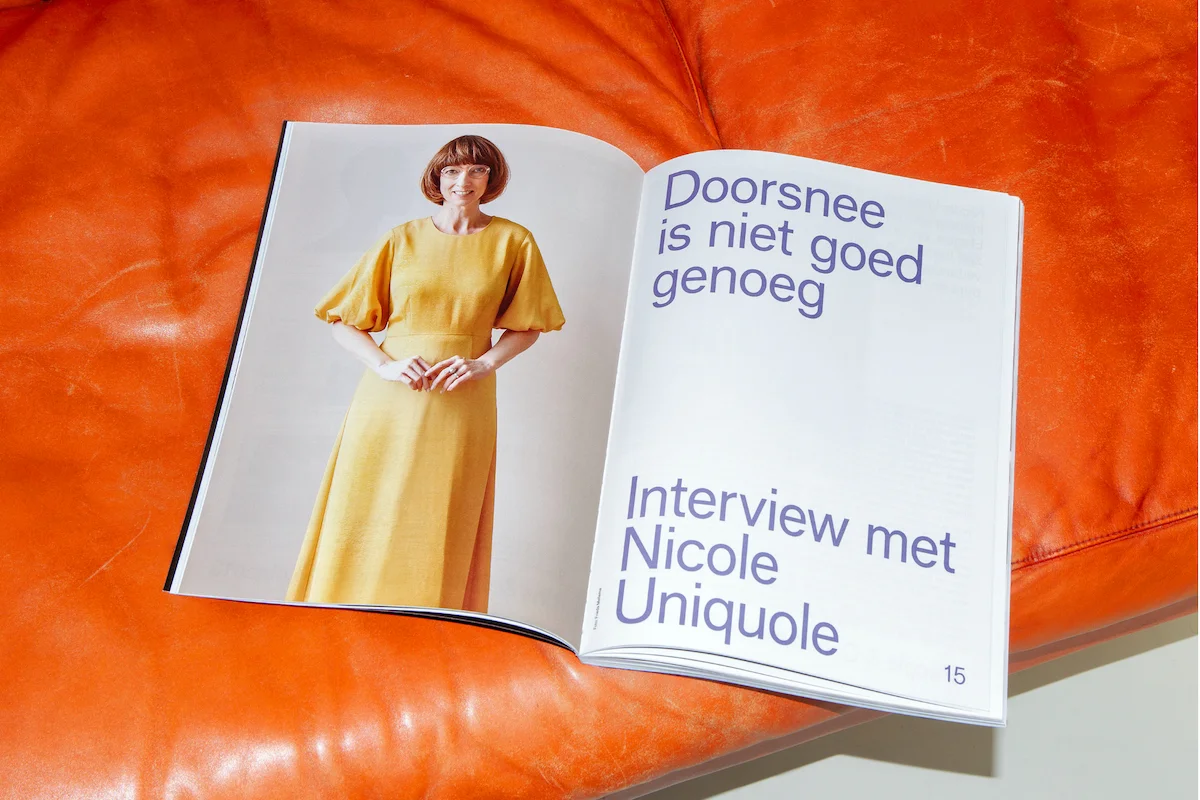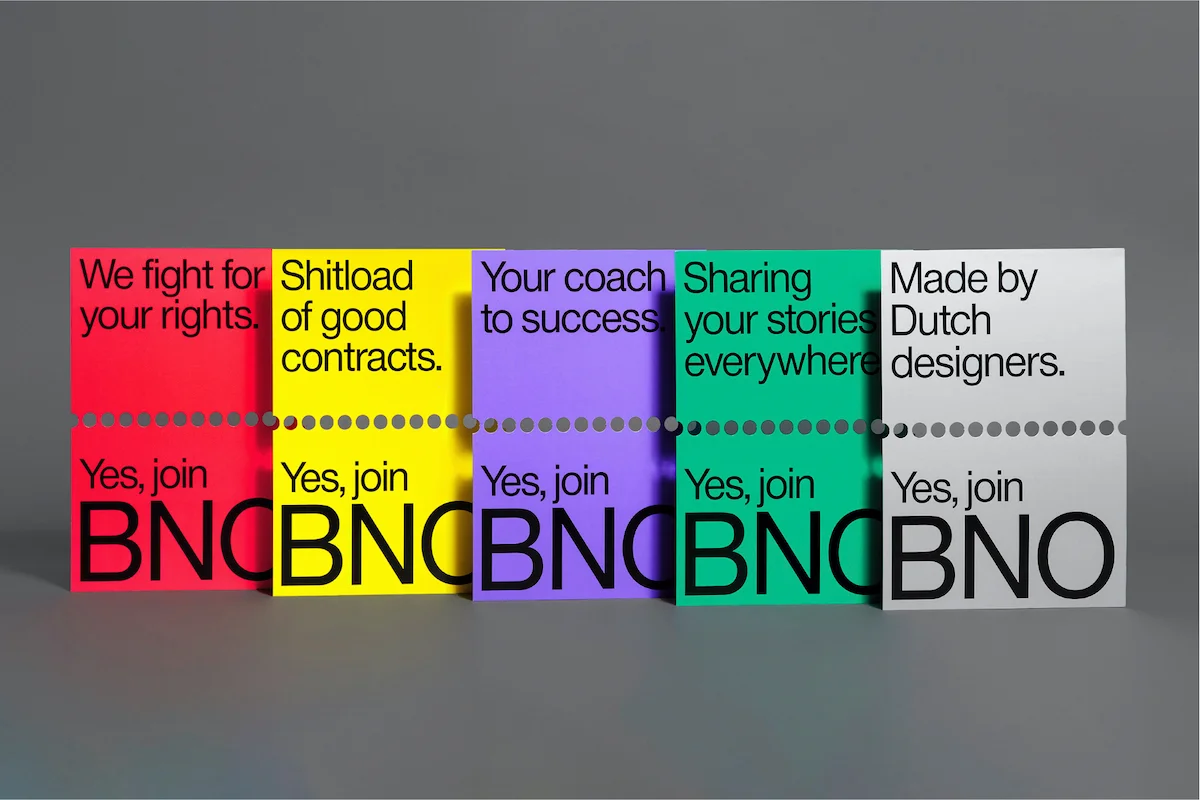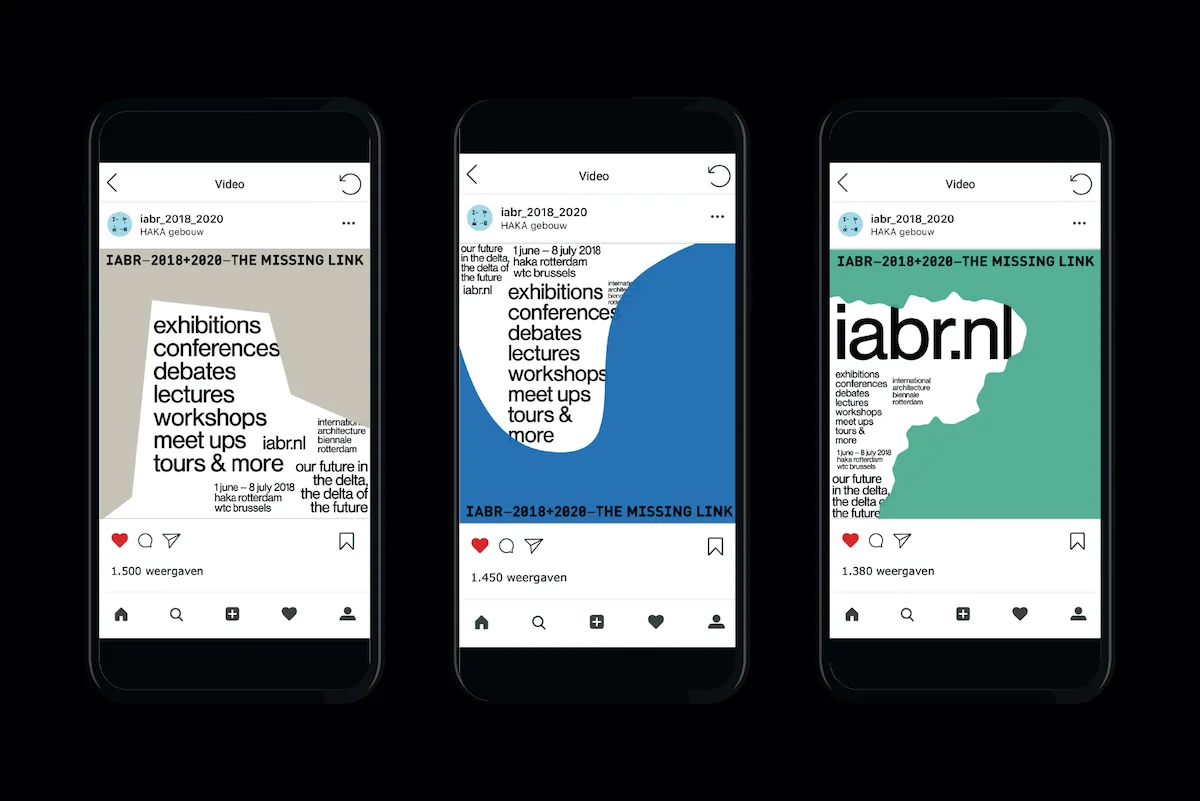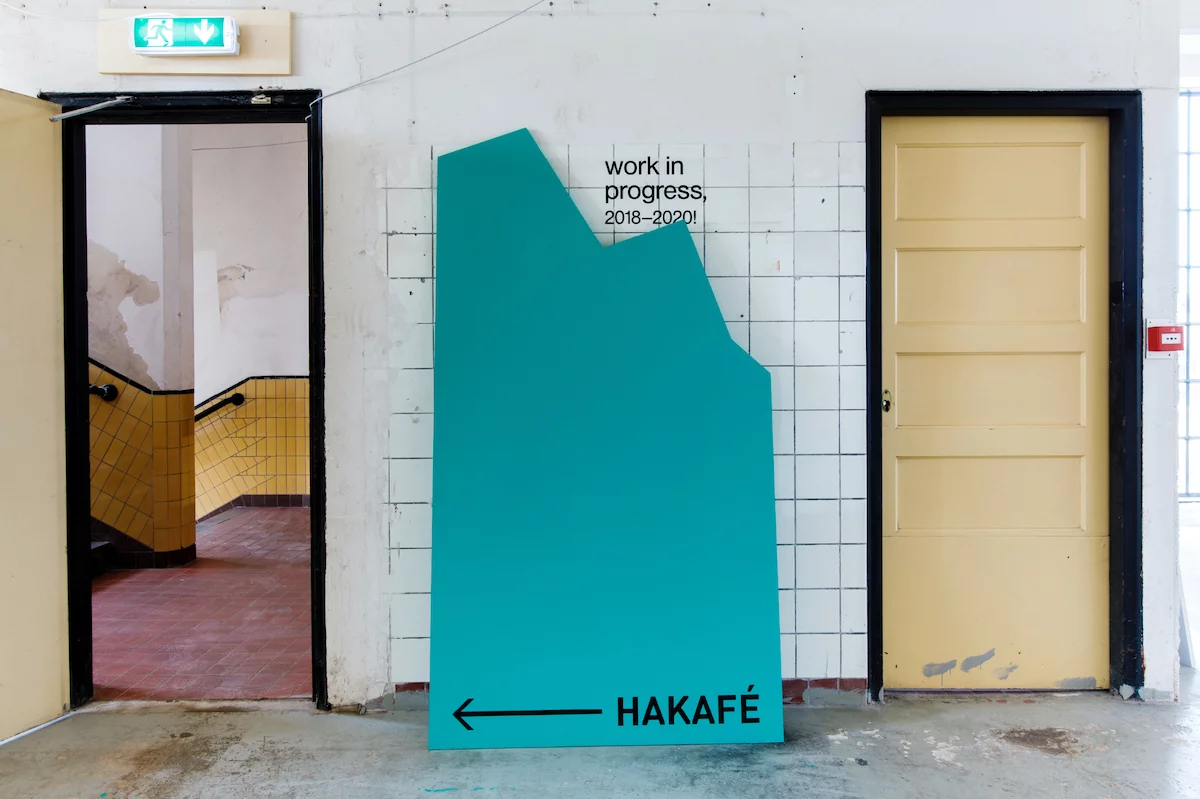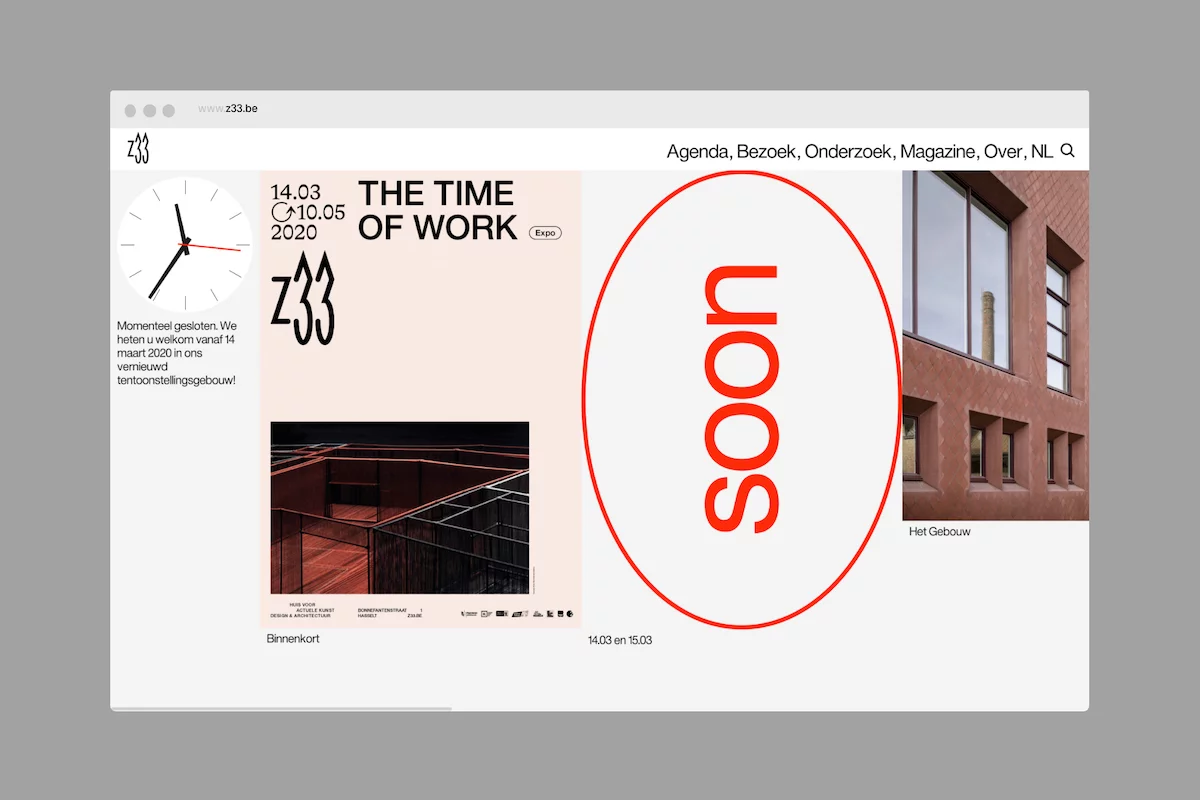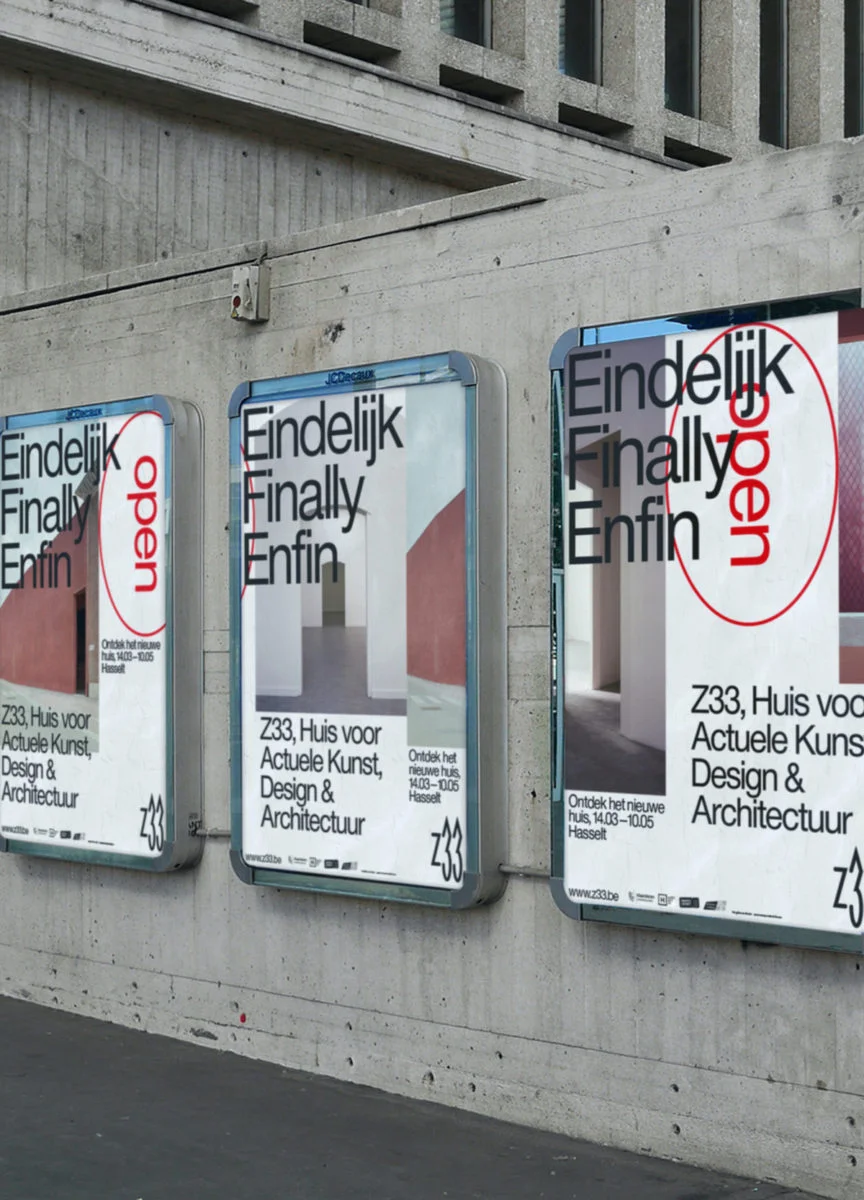
Founded and directed by brothers, Arwen and Mathijs Ronner, the studio de Ronners (@deronners) team consists of Wilfred van der Weide, Lieselot Coenen, Robbert Liekens, Marco Dalle Fratte and intern, Lisa Reckeweg. The creative agency produces visual identities which leave a lasting impression; standing out from the crowd with their bold ideas and bright concepts. ‘Our portfolio is broadly oriented’, the studio tells us, creating visual solutions across the board ‘from websites for start-ups, architectural publications and exhibition design to brand campaigns and identities for cultural organisations’. Aside from design, de Ronners members are ‘passionate about craft beer and clean typography’.
The small-yet-flexible team describe their aesthetic focus as oriented by ‘the perfect balance between Dutch boldness and Belgian finesse with a slice of Italian motion design’. Since starting the company 20 years ago in the North of the Netherlands, Arwen and Matthijs run de Ronners across 2 counties; their main office being based in Rotterdam, the Netherlands, whilst Lieselot sets up new collaborations and projects in a secondary studio in Antwerp, Belgium.
One of our favourite Studio de Ronners projects is their online identity and campaign for Belgium-based art museum, Z33 (@z33be). ‘The new website functions as a Digital House to complement the Physical House: a place where limits are pushed, where you are confronted with the unknown’, the studio expand. ‘With this new online identity, we refer to the experience, location and programme of the new Z33’. The identity meets graphic sans type with the odd pop of displaced serif text and an experimental, jarring-yet-addictive visual rhythm in which exciting compositional selections create juxtaposing senses of flow.
‘It is an Oasis of Friction, where you can wander through endless artistic inspiration and be amazed, but where you can also be blissfully annoyed by the unexpected’, the studio explain. ‘Next to that, we created a publicity campaign that serves as a re-acquaintance with Z33. The eagerly anticipated reopening was announced on social media and posters all throughout Belgium’. Another really exciting project is the studio’s poster campaign for The International Architecture Biennial Rotterdam (IABR) — an organisation with sustainability, environmental and social factors at the heart of their mission. The Biennial looks to promote a firm belief in the social importance of architecture, urban planning and design.
Tasked with gathering momentum and attention for for the 8th edition of the IABR, entitled ‘THE MISSING LINK – Our Future in the Delta, the Delta of the Future’, de Ronner’s explain, ‘We came up with ‘Radical Optimism’ as the title for our publicity campaign while thinking of the Dutch anti-nuclear movement and their classic symbol of the smiling sun. We created a radical visual language with optimistic colours, which was visible throughout the city in print, interactive installation and the exhibition design’.
Looking forward, de Ronners tells us about some exciting ongoing projects; ‘As for this year: we were asked to be the new designers for the BNO (Association of Dutch Designers). In the years to come we’ll be re-branding their on-and offline identity & various campaigns. The first result of this long-term project is the release of the rebranded and redesigned Dude magazine: Dutch designers Magazine, #0… Alongside this we recently got selected in a Pitch for Architecture Workroom Brussels; an exiting project we’ll soon be able to tell you more about… Currently, we’re very much looking forward to the first new issue of the Dutch designers Yearbook for the BNO where we’re working on. It will be launched end of this year, and will get published internationally, so keep your eyes open for a copy!’.